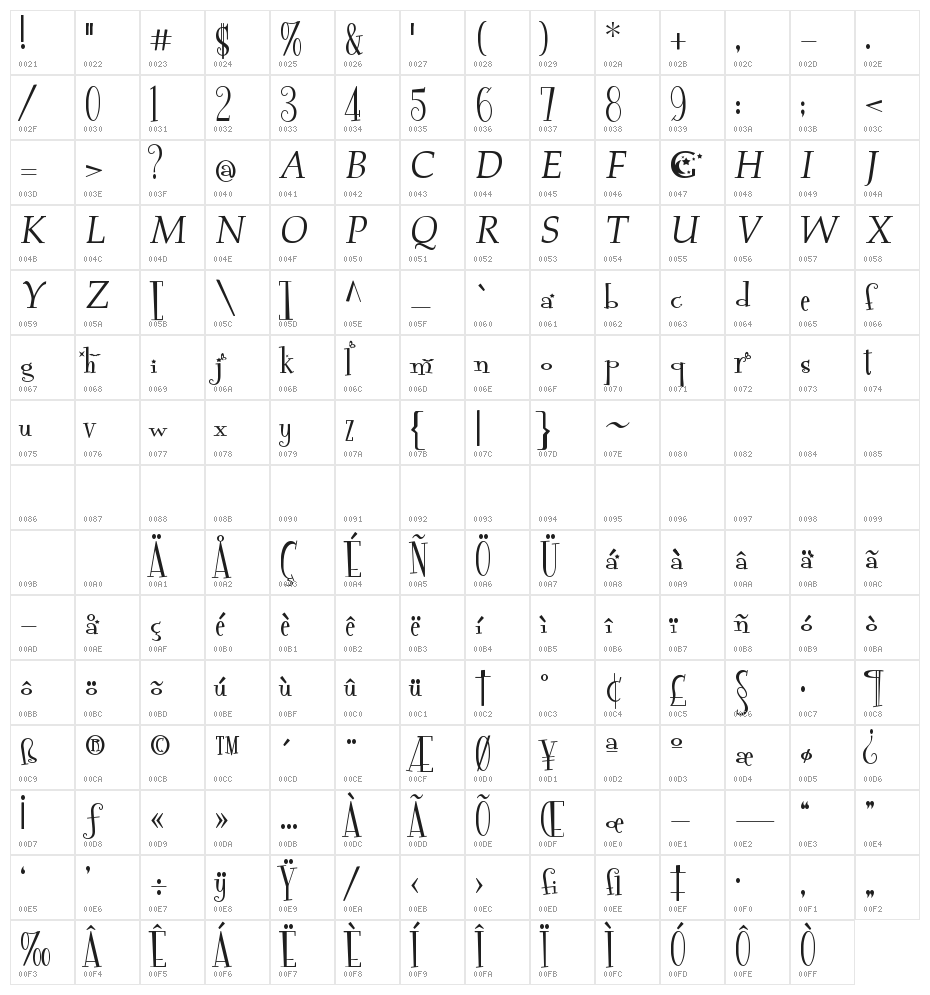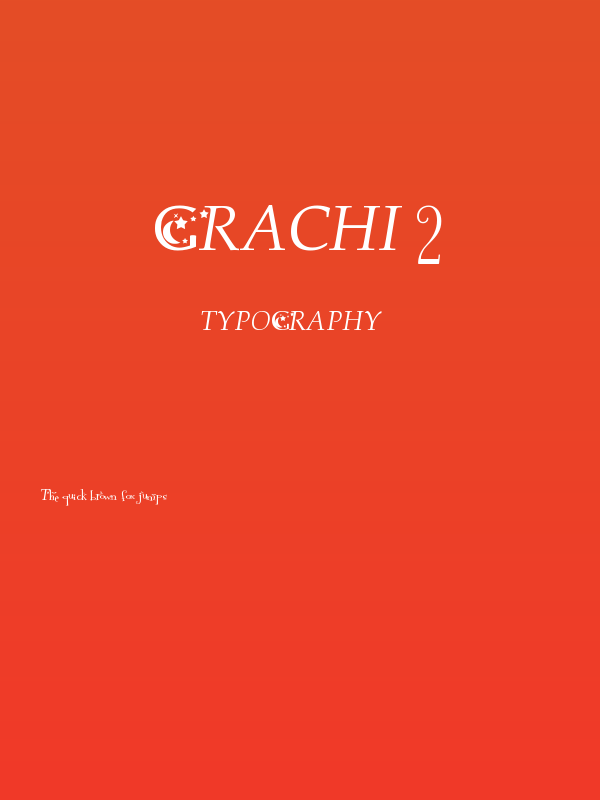
Grachi 2 Font
Grachi 2 Description
This font features a whimsical and decorative style, incorporating playful elements such as stars and unique accents on certain characters. The uppercase letters have a classic serif appearance with a slight slant, adding elegance and sophistication. The lowercase letters are more playful, with varying heights and decorative elements that give them a magical, fairy-tale quality. The numbers are tall and slender, maintaining the whimsical theme with slight variations in stroke width. Special characters are creatively designed, incorporating stars and unique shapes that enhance the overall decorative feel.
| Proposed Projects | Ideal for children's book covers, fantasy-themed posters, whimsical branding, and creative invitations. |